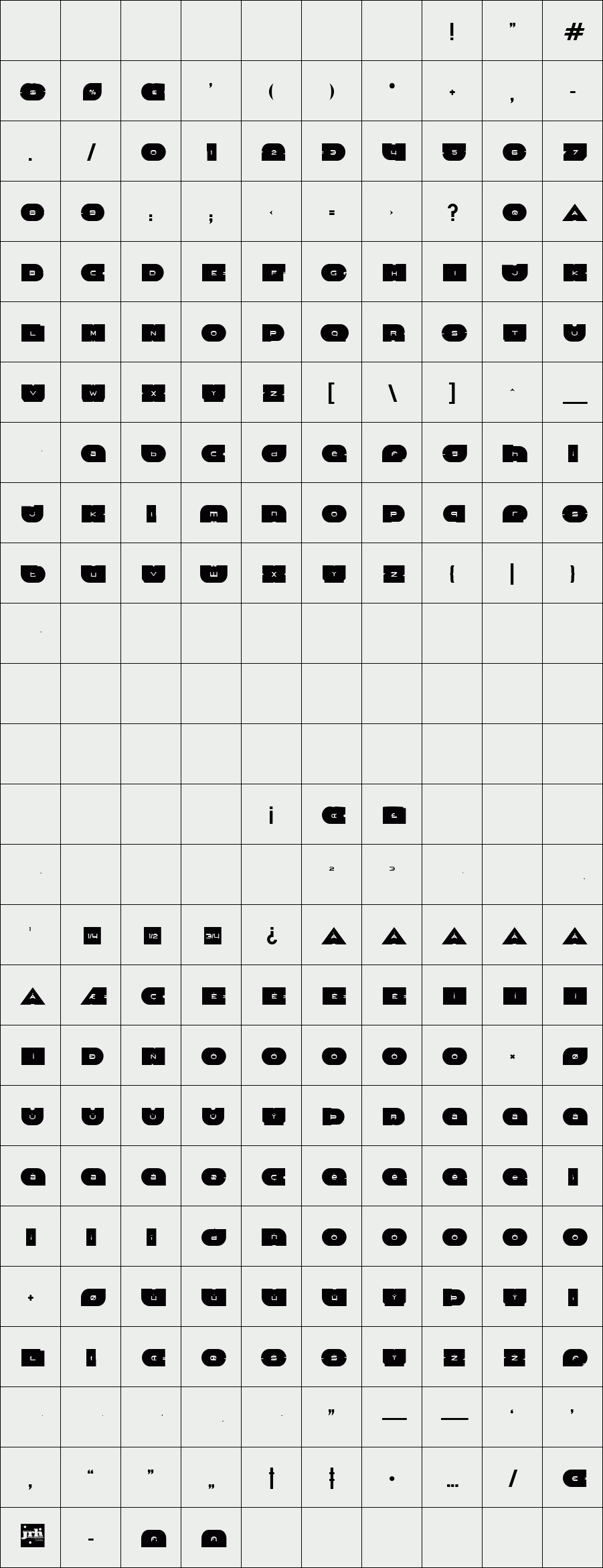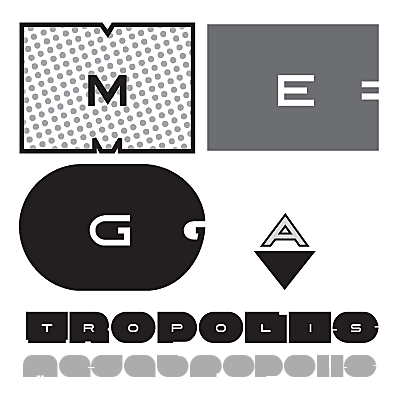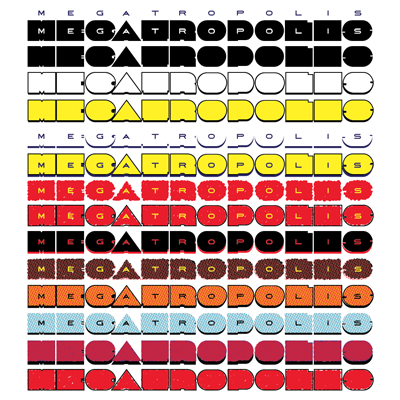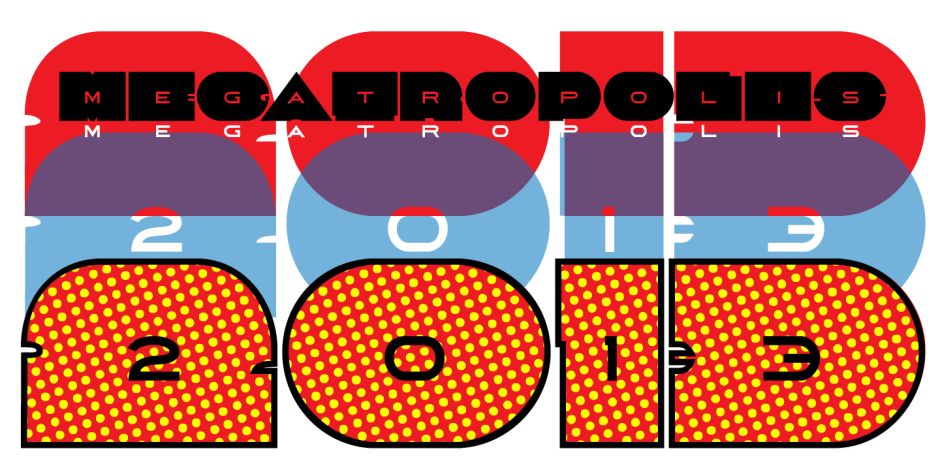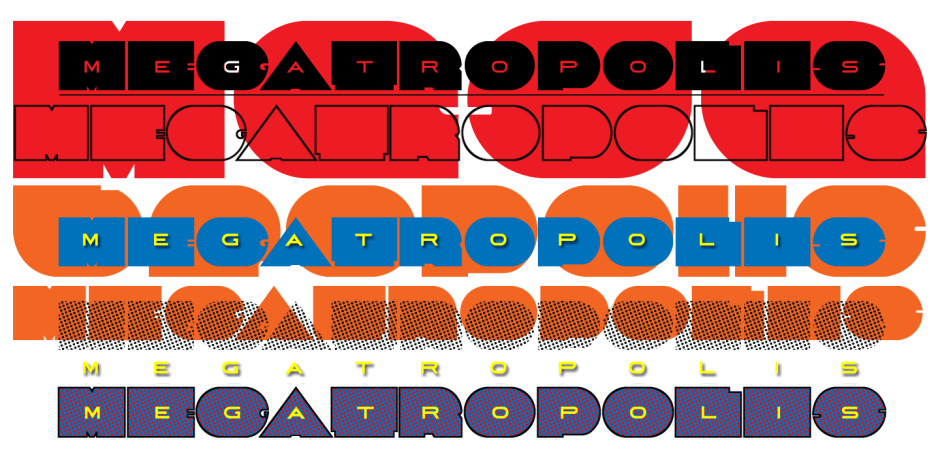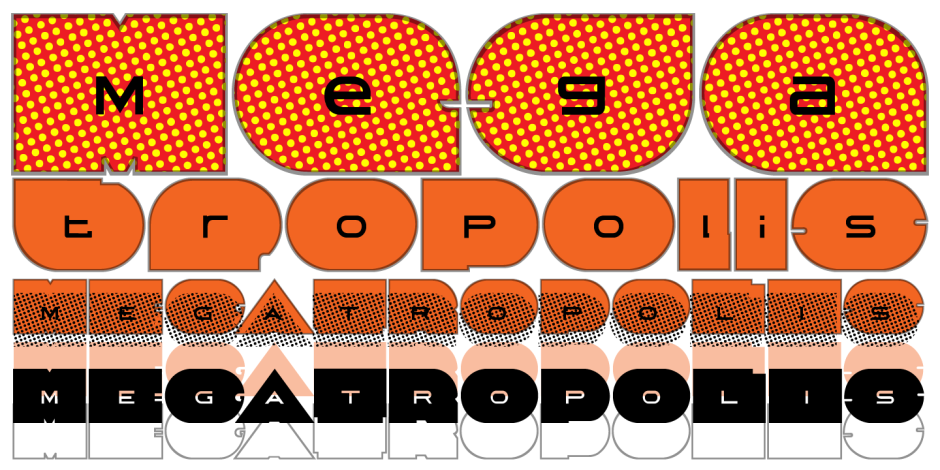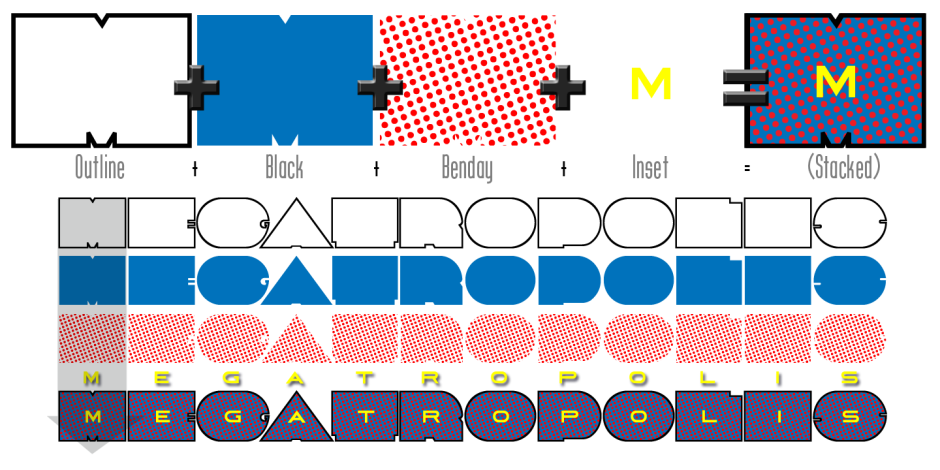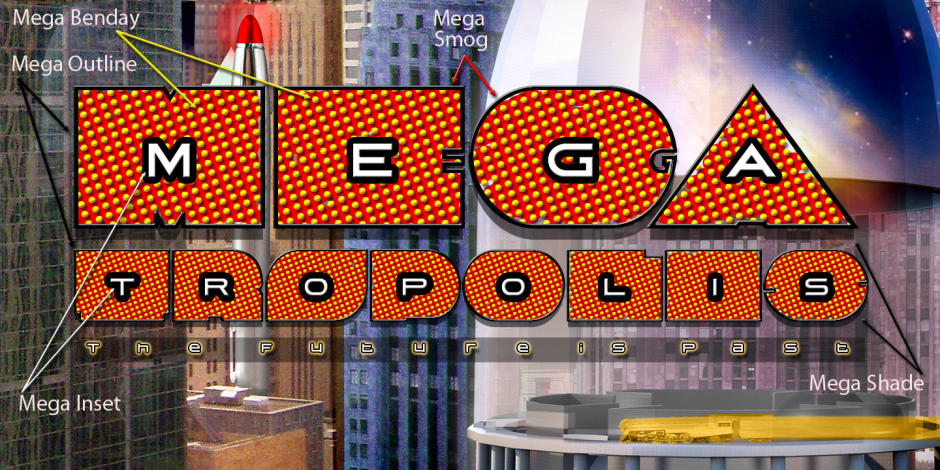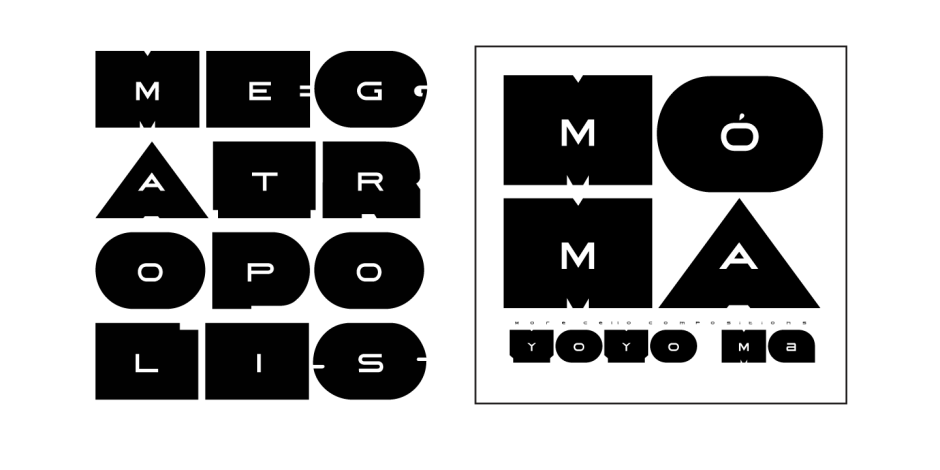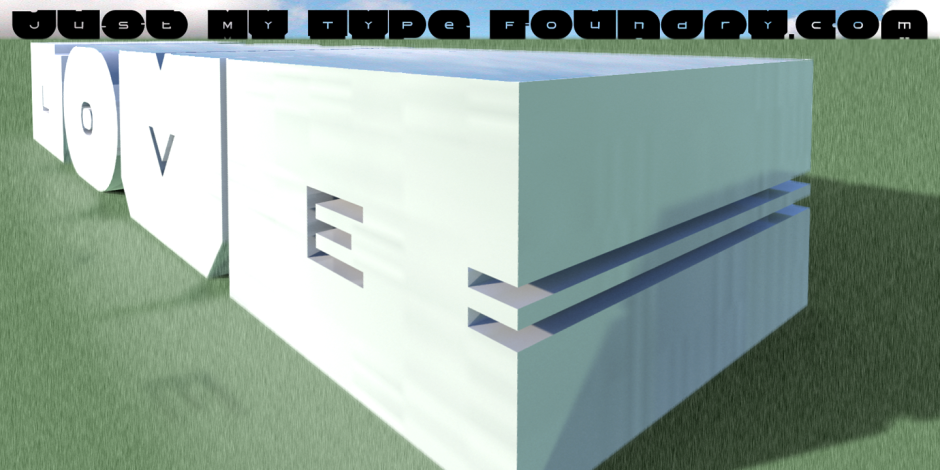
Megatropolis
Introducing Megatropolis: intellectual, architectural, urban and urbane. What started as an idea where the counters would be letters (3 scribbled glyphs on a piece of scrap paper), has grown into a mighty font family of eight stackable fonts.
First came Megatropolis itself, a Deco font within a Deco font; Double Deco, you might say. In Illustrator, you can deconstruct it to make solid letters, outline letters or just the inset letters on their own, and you can stack them how you wish. Or you can get the whole Megatropolis family with Black, Outline, Inset, Smog, Shade and Shade with Inset and keep them all separate stackable, editable fonts. In addition, there’s Megatropolis Benday (available in TT only), with its fabulous stackable comic dots.
Megatropolis is a typographer’s playground.
First came Megatropolis itself, a Deco font within a Deco font; Double Deco, you might say. In Illustrator, you can deconstruct it to make solid letters, outline letters or just the inset letters on their own, and you can stack them how you wish. Or you can get the whole Megatropolis family with Black, Outline, Inset, Smog, Shade and Shade with Inset and keep them all separate stackable, editable fonts. In addition, there’s Megatropolis Benday (available in TT only), with its fabulous stackable comic dots.
Megatropolis is a typographer’s playground.